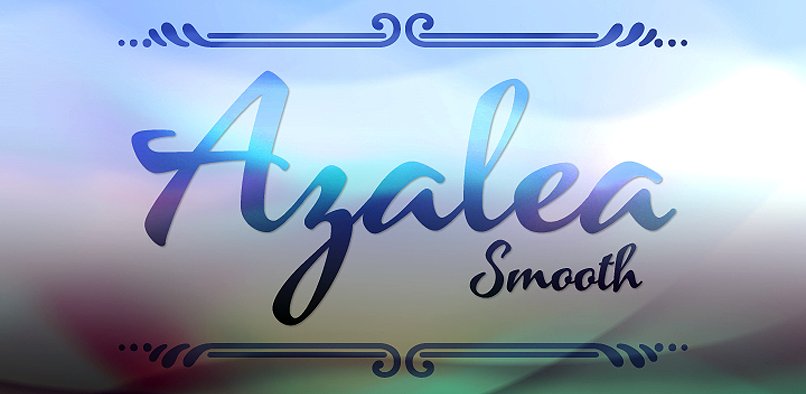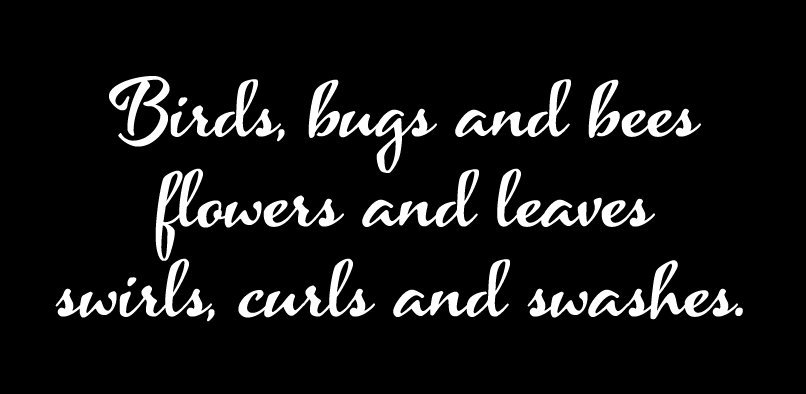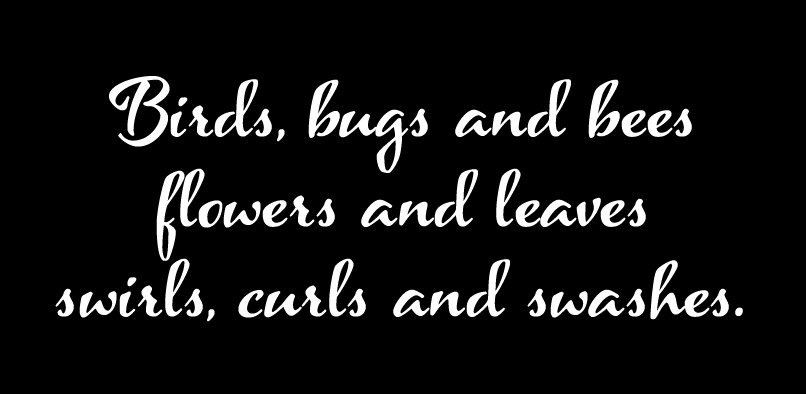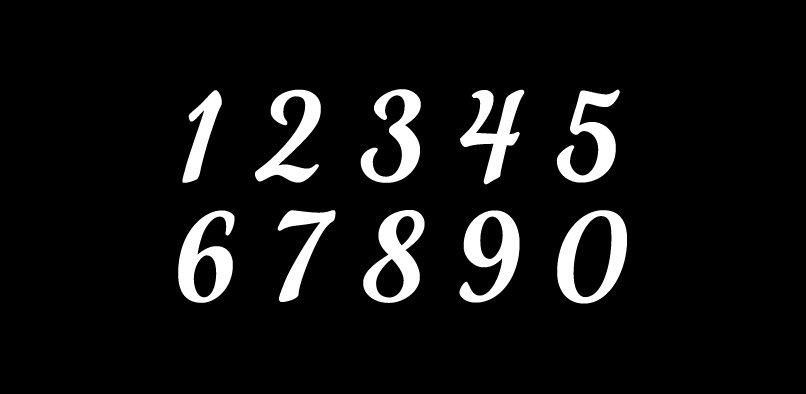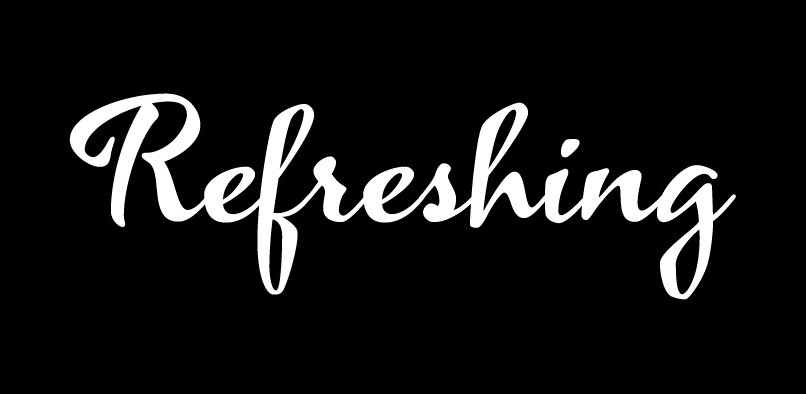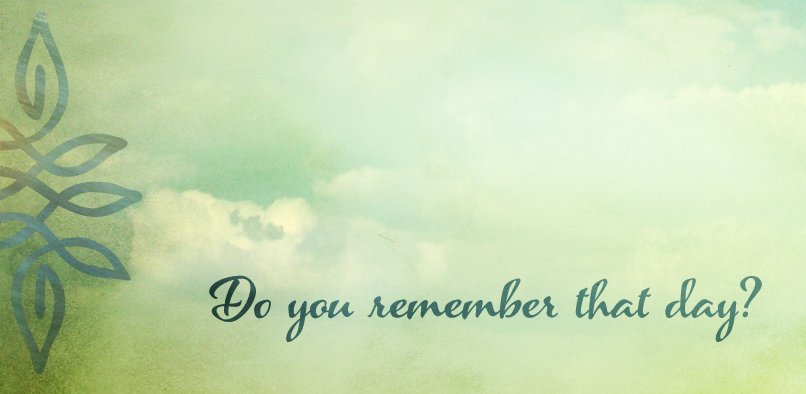
I love big, round, fancy letters – a beautiful flourishing script. But what I love even more in a script typeface, is a design that is distinctly different. A glimmer of the exotic, a touch of the unusual. Azalea is just that, and it possesses the ability to work in many design situations. Azalea comes in two varieties. The clean lines of Azalea Smooth accentuate it’s jaunty, angular letterfoms, giving it a modern look. Azalea Rough has a rustic, organic feel with a distinct irregularity to the letters that provide it with a unique appearance. Azalea Rough features an alternate set of capital letters that are a bit more casual than the standard set.